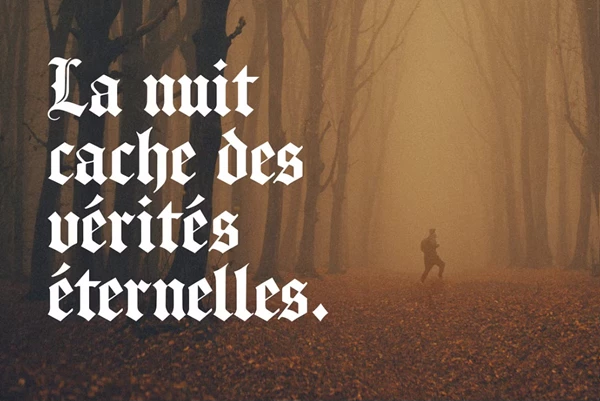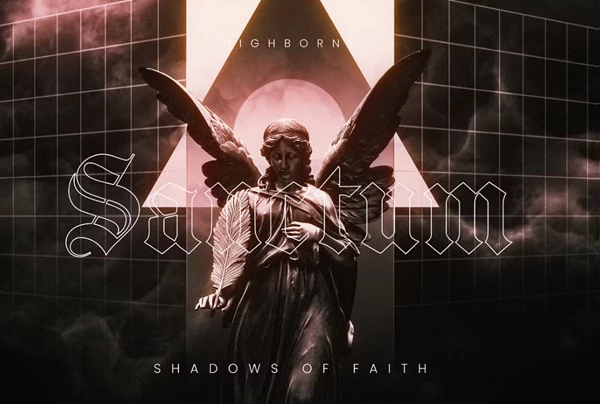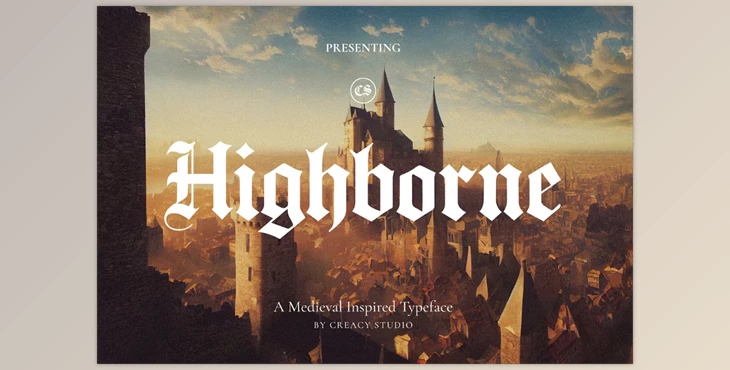
Highborne Medieval Typeface:
Transport your audience to a realm of ancient legends, enchanted castles, and sworn oaths with the Highborne typeface. A blackletter font inspired by the medieval age, it features an intentional design created to add a strong, vintage yet modern touch to your projects. With sharp, ornamental strokes and high contrast reminiscent of an illuminated manuscript or a coat of arms, this family works well for contemporary undertakings.
Great uses for Highborne include music albums, fantasy movie posters, gothic brands, dramatic film quotations, book covers and titles, and more. It boasts a mysterious yet powerful presence that will keep your audience curious and engaged.
- Full uppercase and lowercase alphabet
- Numbers and punctuation
- Multilingual support
- Alternates and Stylistic Set
Recommended Uses:
- Album artwork and music covers
- Posters and flyer designs
- Dark fantasy themes and medieval projects
- Book covers, titles, quotes
- T-shirts, packaging, branding
- Logos and brands with an edge